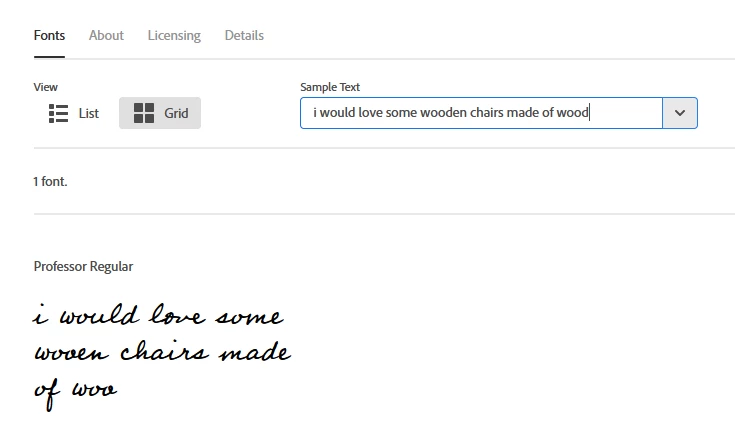
Professor font issue
I'm having an issue with the professor font not showing a d character if it is preceeded by woo. Adobe fonts own tester shows this issue. My temporary fix is to add an extra d to the text for it to show one d on my website.  Has anyone else encountered this issue and know of a way to fix?
In something of a panic, I just opened InDesign and typed the same series of words—and the “d” in “wood” showed up just fine. Since I doubt there’s an issue with Adobe’s tester, my guess is they’ve got an older version of Professor. (I seem to recall such an OpenType error in a previous version.)
Meanwhile, I can explain the various double-o differences us-hh has noted:
The default “o” has the loop you see in “most.”
The word “more” includes an “or” ligature.
The word “move” has an “ove” ligature.
The words “Wood,” “good,” and “food” use an “oo” ligature.
The words “wood” and “wool” serve as ligatures of their own (which explains why their internal “oo” combination differs from that in “good,” etc.).
The word “wood” is supposed to work exactly like the word “wool.”
The bug only seems to occur when the word "wood" is used with a lower case "w".
No bug in wool, good, food, Wood ...
There are 3 types of the lower case letter "o" - try it:
1. Standard "o" like in "most",
2. Version without the small loop, like in "more"
3. Special version for the pairing of "ov", like in "move" (special version of "v" also)
When you write a word with "oo", automatically the first "o" will be changed to version 2 / but not in "wool", oddly enough.
I can't find a table of all glyphs, because I haven't a Adobe subscription. So I can't try it. I installed the demo version of this font and there's no bug when I use two standard "o" for "wood" because the other two versions aren't available in the demo.
Maybe you can swap it out with the help of the glyph table.